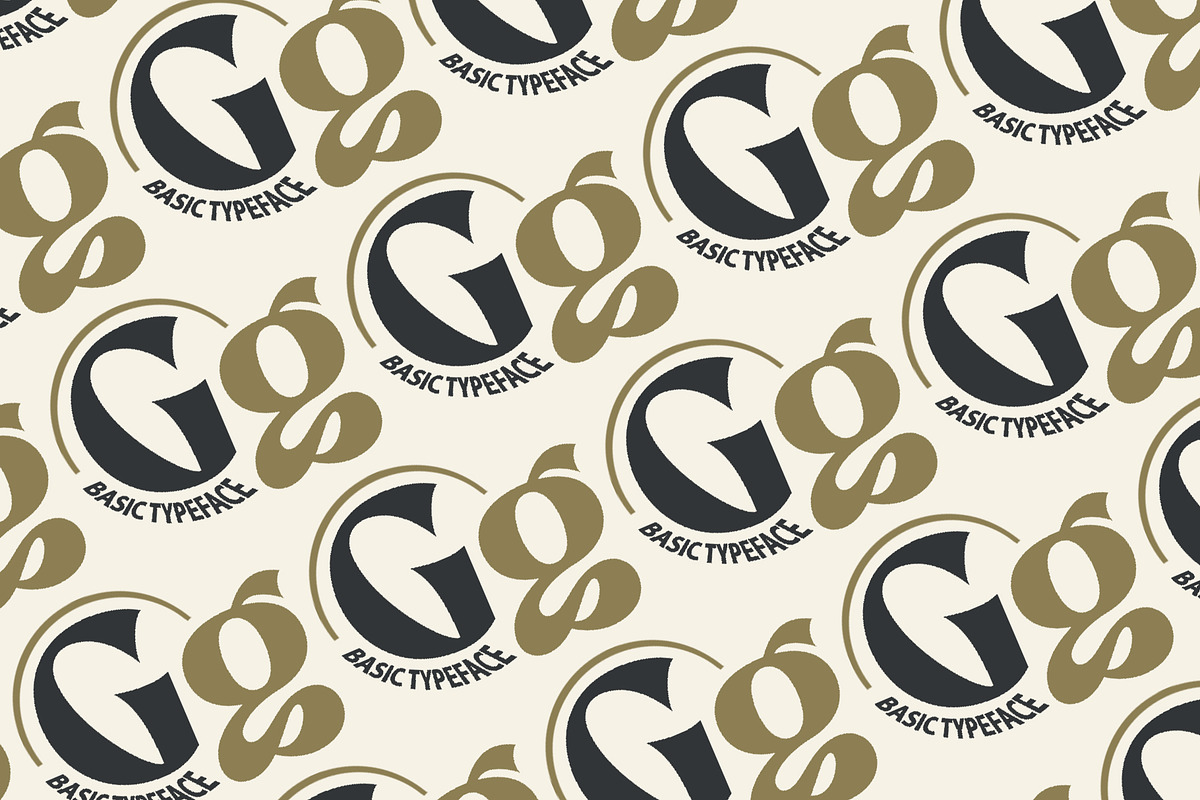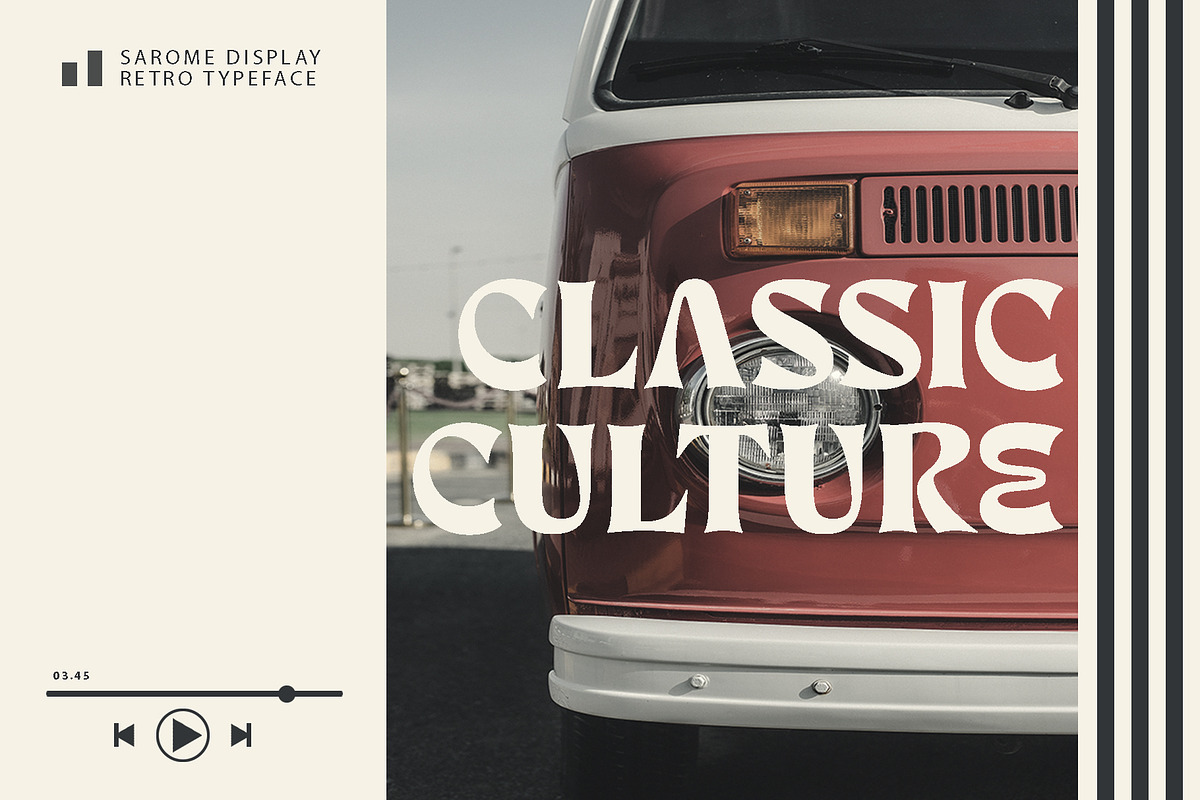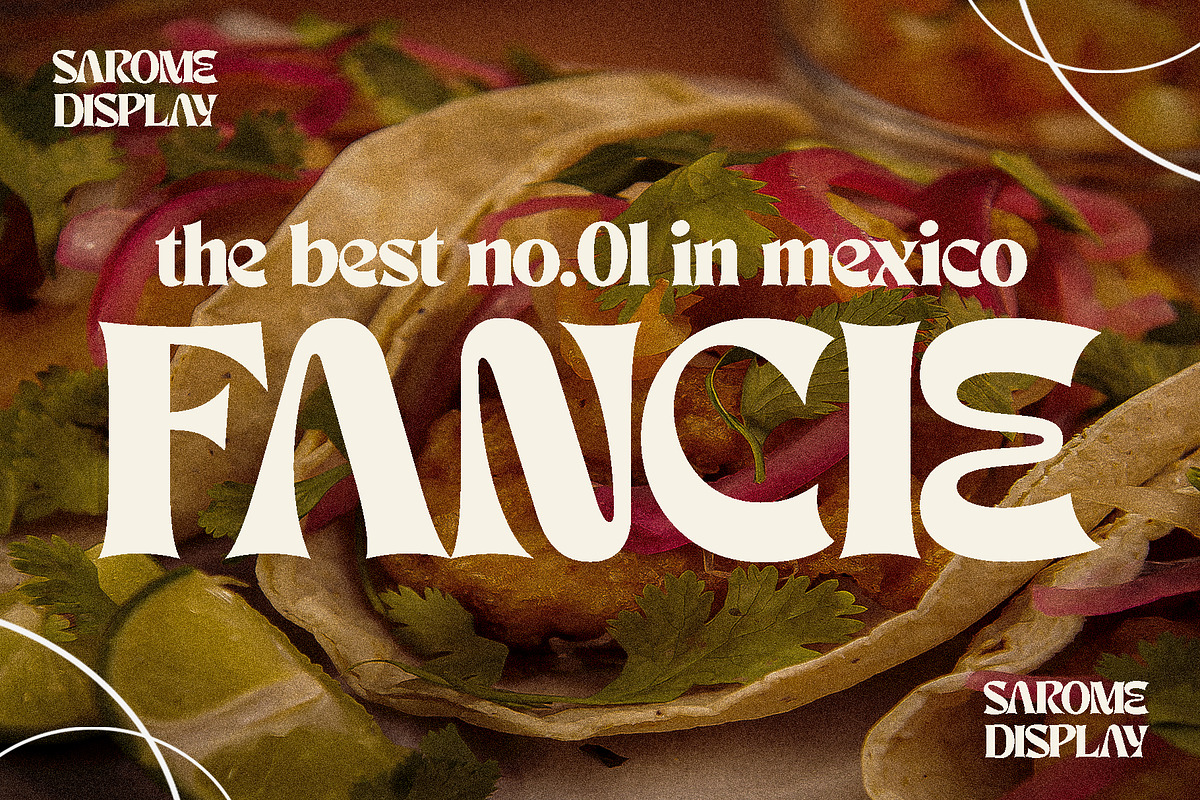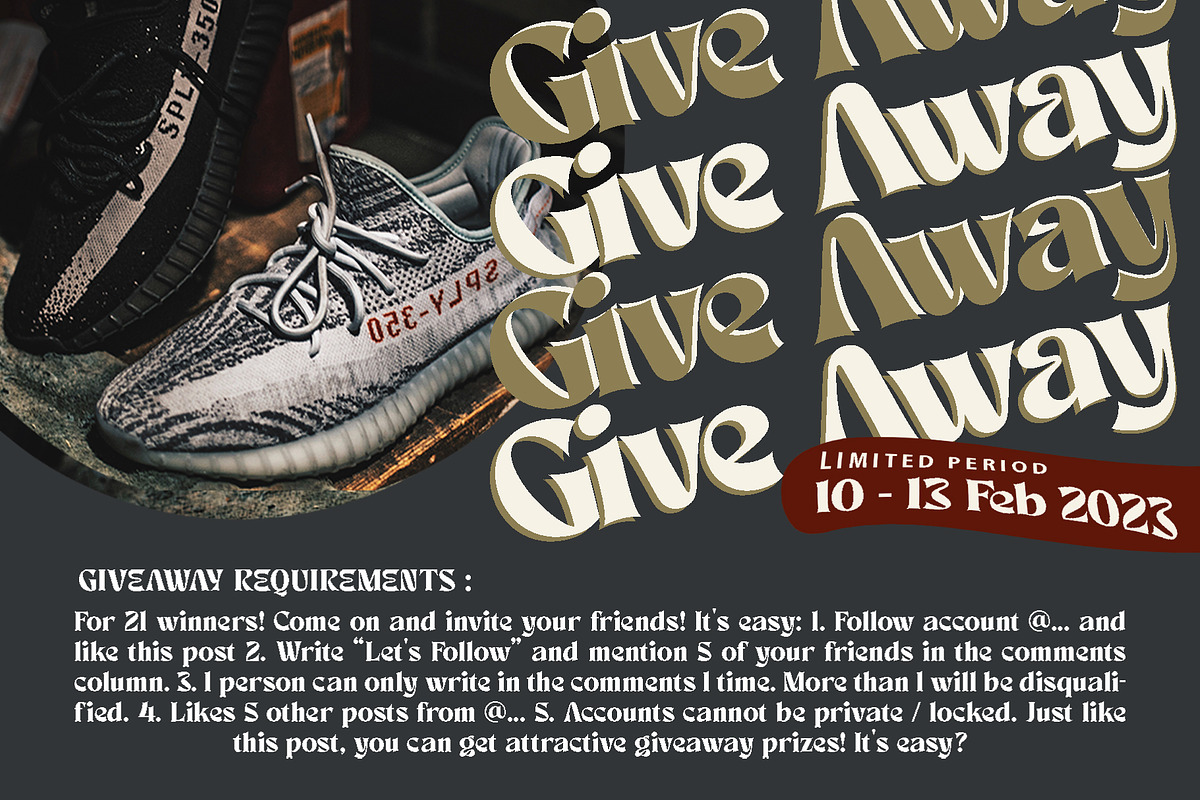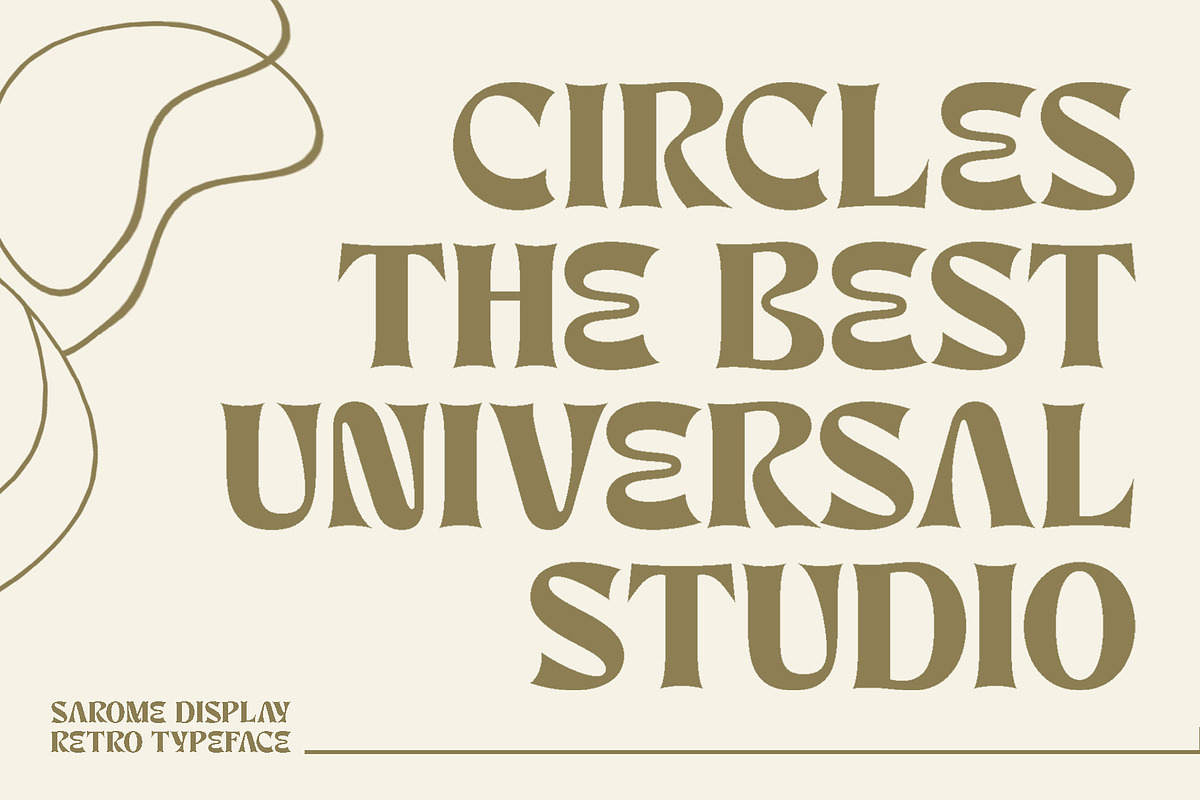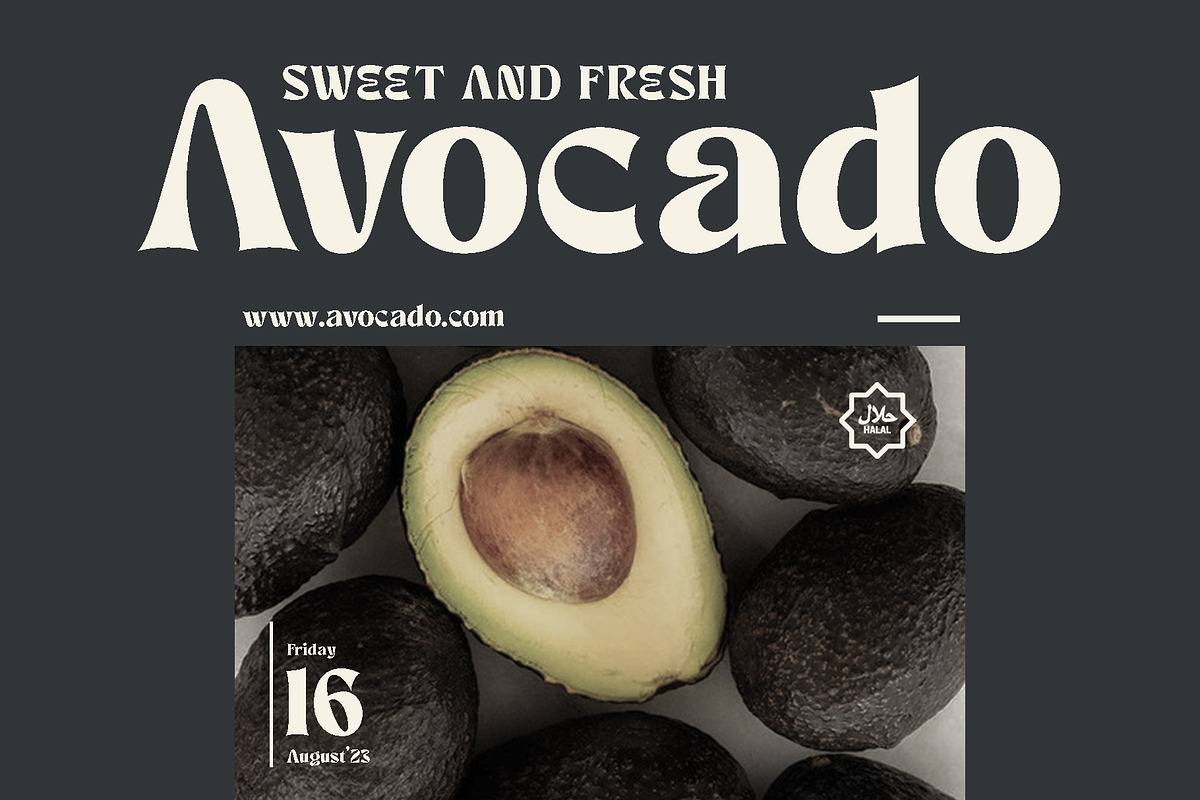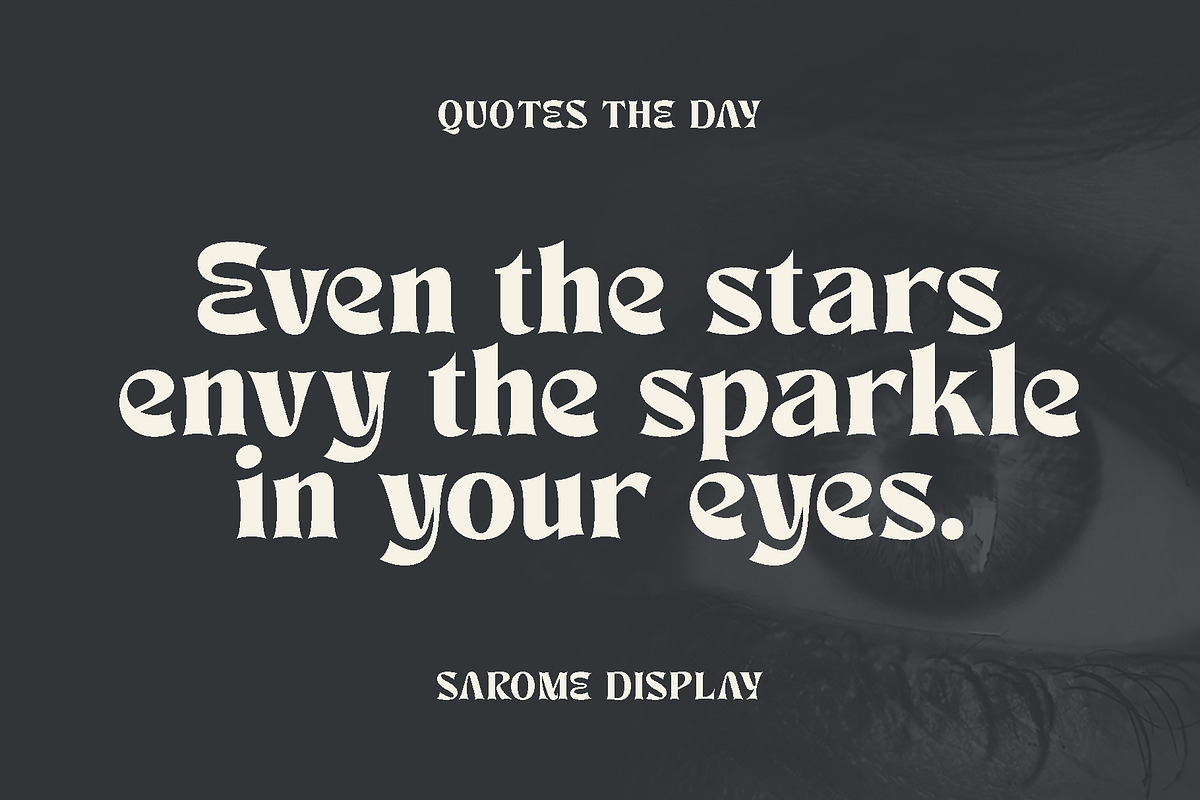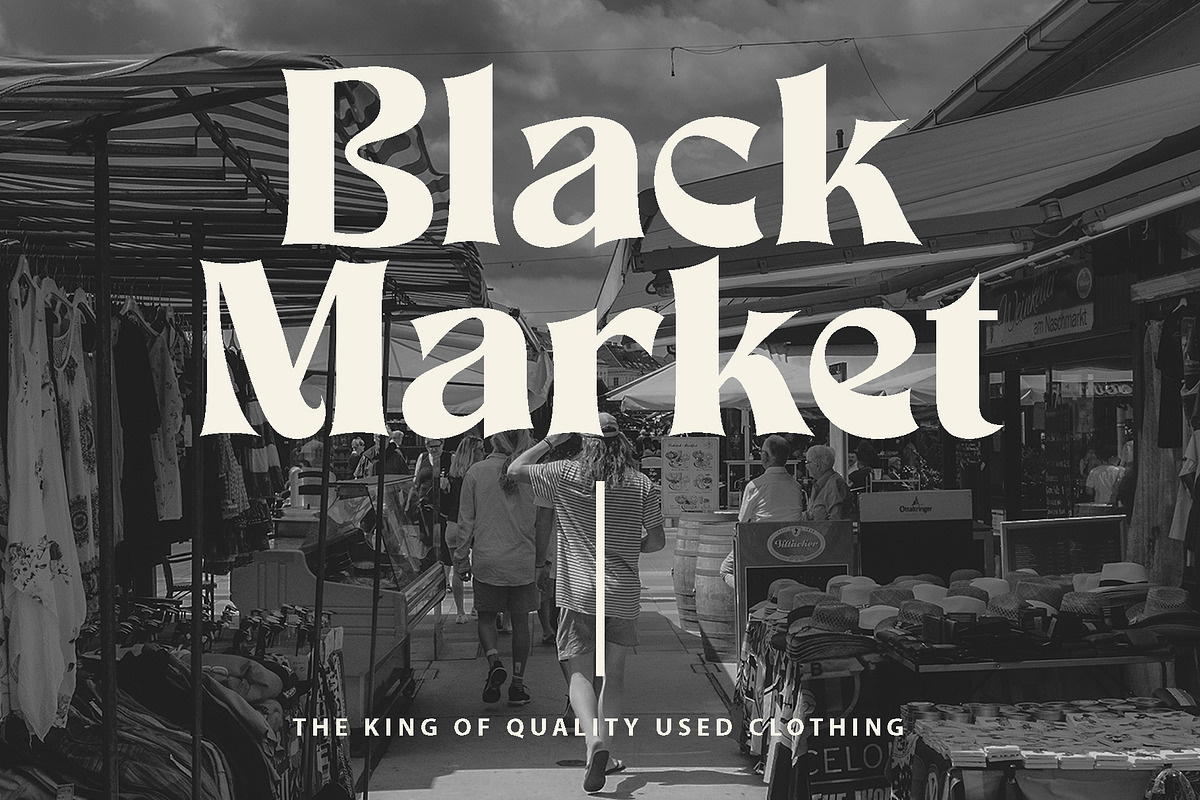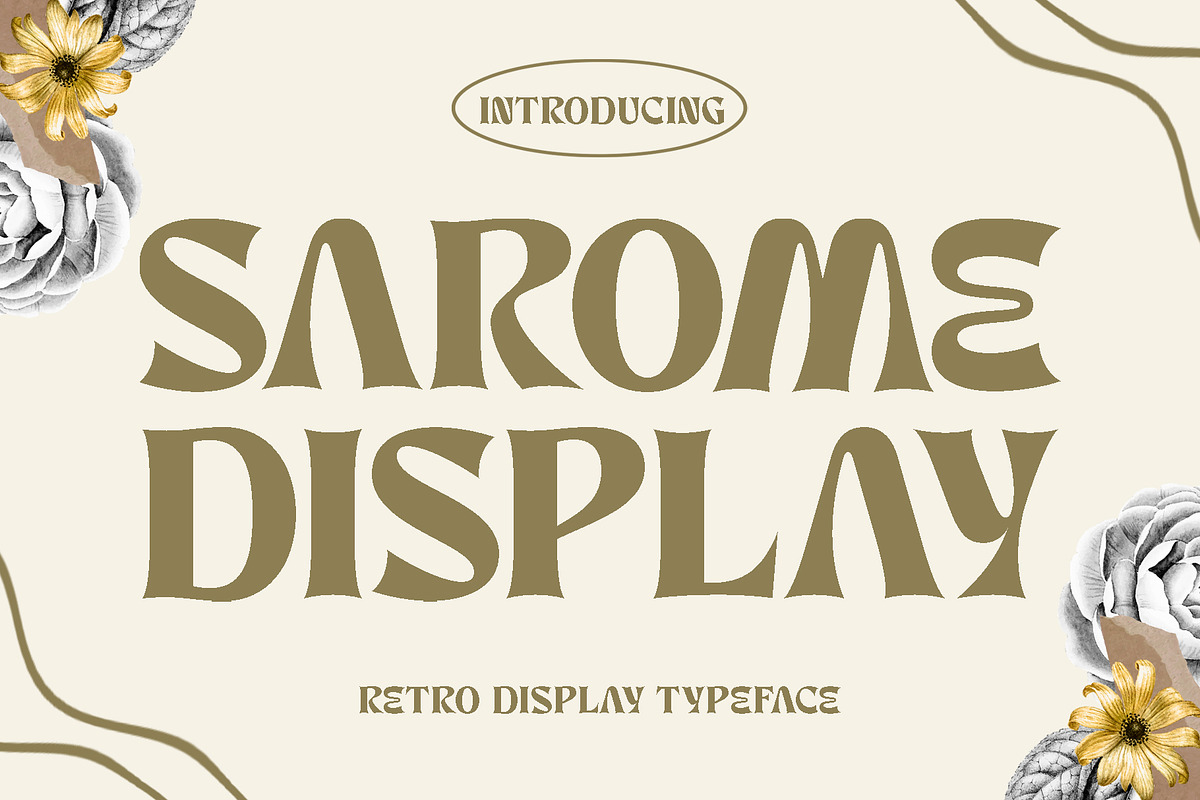
Sarome Display
Sarome is perfect for many different projects such as logos & branding, invitation, stationery, wedding designs, social media posts, advertisements, printed quotes, product packaging, product designs, label, photography, watermark, special events or anything.